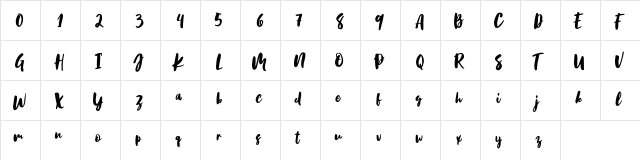
Birabella Script Regular
Design Context for Birabella Script Typeface
Birabella Script flows with the natural rhythm of handwritten lettering, making it ideal for designs that call for warmth and personal expression.
Font Pairing: Combine Birabella Script with a simple geometric sans for maximum contrast — the tension between flowing curves and clean structure is a classic typographic pairing.
Pro Tip: Use Birabella Script for short runs of text — names, titles, or taglines. Extended body copy in script faces tires the eye quickly.